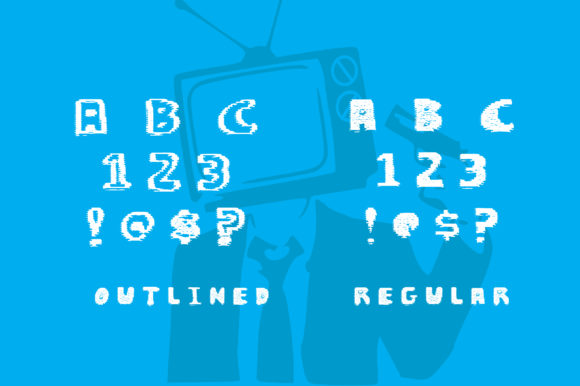
Channel Surfing Inspiration
We’ve all been there – flipping through channels, searching for something, anything, to catch our attention. But what happens when the TV is as blank as the screen? Sometimes it’s in those moments of creative desperation that we stumble upon something truly special. For designers, it’s not just about the absence of content, but about the possibilities that arise from it.
Enter Bad TV Font, a stylised font that captures the essence of a static-filled TV screen. With its rounded, comic book feel, this font is perfect for designers looking to add a touch of nostalgia and playfulness to their projects. Whether you’re working on a children’s book, a comic strip, or even a retro-themed website, Bad TV Font is the perfect addition to your design arsenal.
With its Regular and Outlined weight options, designers can experiment with different styles and effects, taking their designs to the next level. So why settle for a boring, ordinary font when you can channel your inner creative and use Bad TV Font to add some much-needed personality to your work?
Bad TV Font Key Features
- Unique Characteristics: The font features a distressed, retro aesthetic with pixelated and glitchy effects, reminiscent of old television broadcasts.
Bad TV Font Review
Bad TV Font is a font that’s as quirky as its name suggests. I’ll be honest, I was skeptical at first, but it’s grown on me. ✨ The font’s irregular shapes and mismatched lines give it a unique, hand-drawn feel that’s perfect for designs that need a bit of personality.
- It’s great for creating a retro vibe. The font’s imperfections and distressed look are reminiscent of old TVs and VHS tapes.
- The irregularities in the font make it easy to use for text that needs to stand out. The font’s inconsistencies become a visual interest that draws the viewer’s eye.
- Bad TV Font is available in a range of weights, from light to bold, which makes it versatile for use in different design contexts.
That being said, there are some limitations to consider. ⚠️ The font’s irregularities can be distracting if used extensively. It’s best to use it sparingly to avoid overwhelming the viewer.
Overall, I’d give Bad TV Font 3.5 out of 5 stars. While it’s not perfect, its unique charm and versatility make it a great addition to any designer’s toolkit. Just remember to use it in moderation to get the best results.
Bad TV Font is commonly used in:
- Designing retro-inspired graphics and logos.
- Creating fake TV or movie titles.
- Adding a touch of nostalgia to your design.